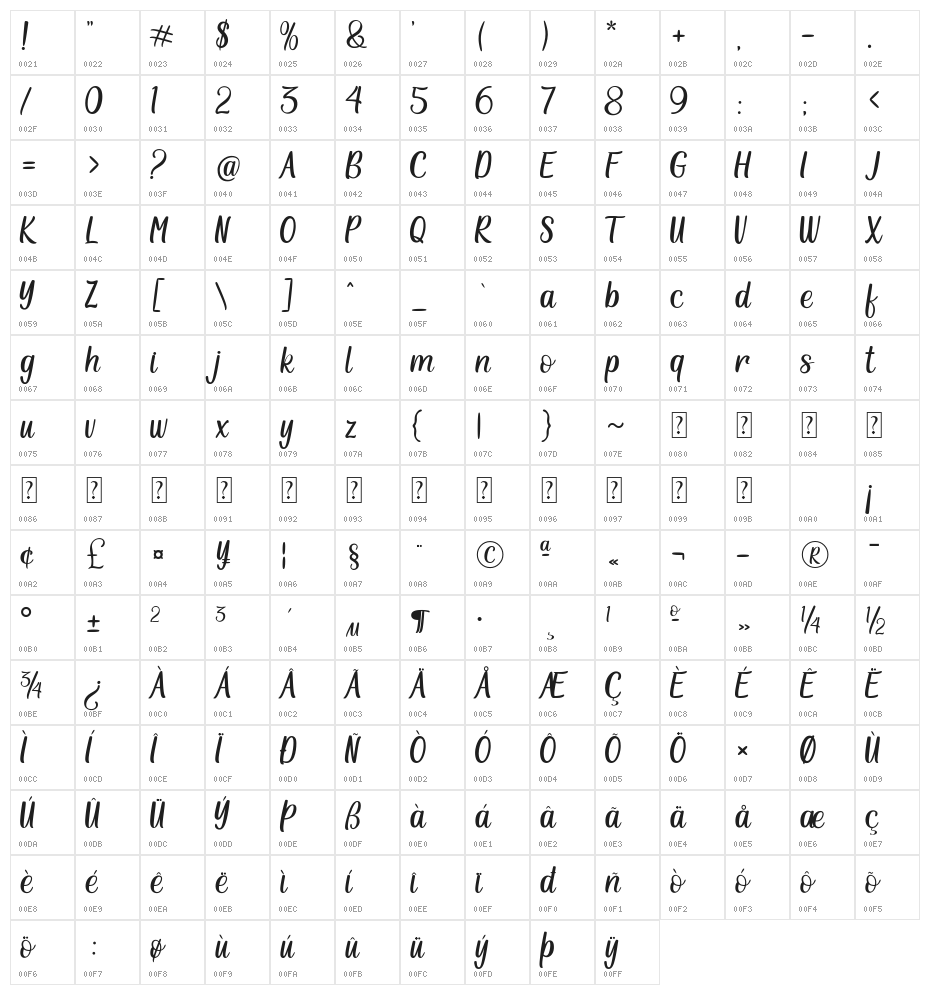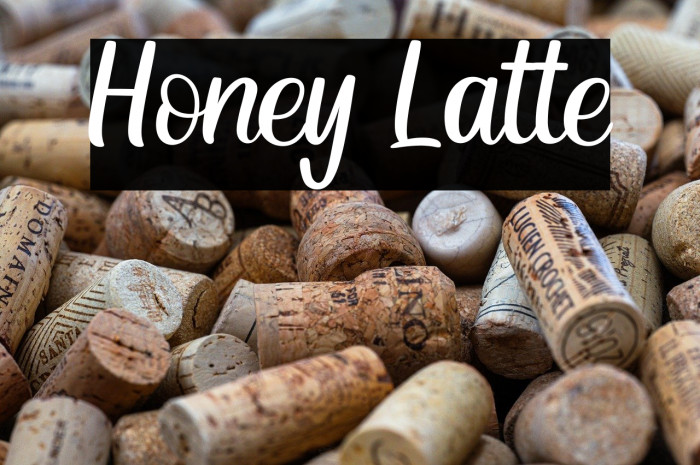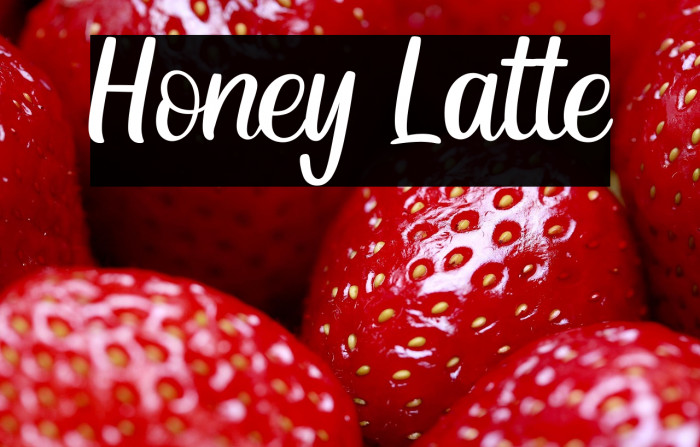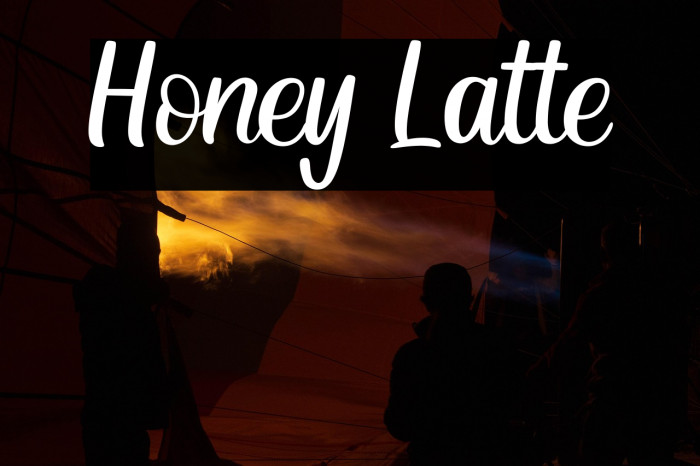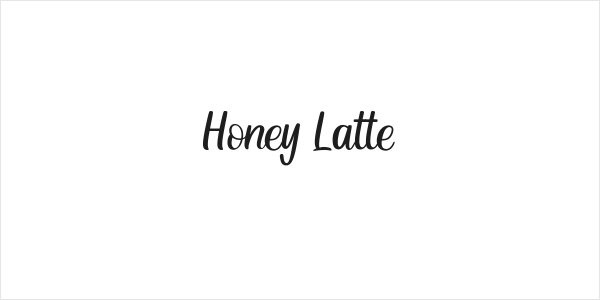
Honey Latte Font
Honey Latte Description
This font exudes a playful and energetic vibe with its bold, flowing script style. The characters are crafted with a smooth, continuous stroke that gives a sense of movement and fluidity. The uppercase letters are slightly more upright and structured, while the lowercase letters have a more relaxed and casual appearance. The numerals are consistent with the overall style, maintaining the same flowing and connected look. Special characters are designed to complement the alphabet, ensuring a cohesive appearance across all text. This font is perfect for projects that require a touch of elegance and personality.
Use CaseLogos, Headlines, Invitations
Proposed ProjectsIdeal for branding, invitations, greeting cards, and social media graphics.